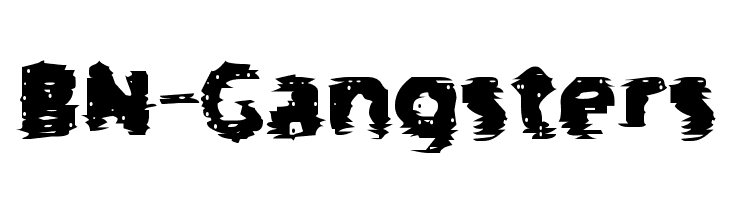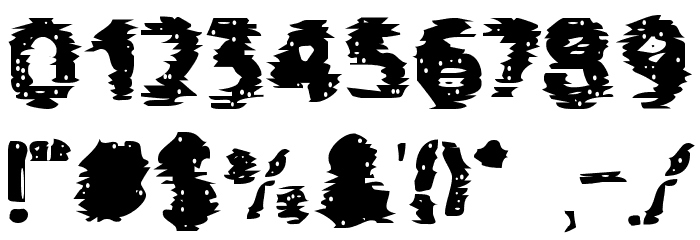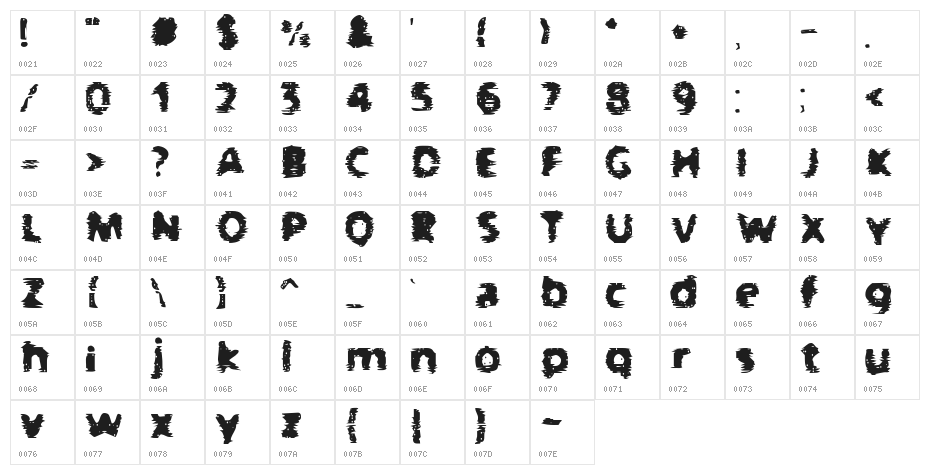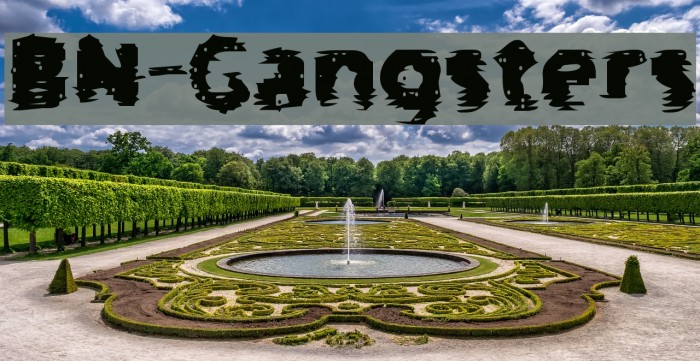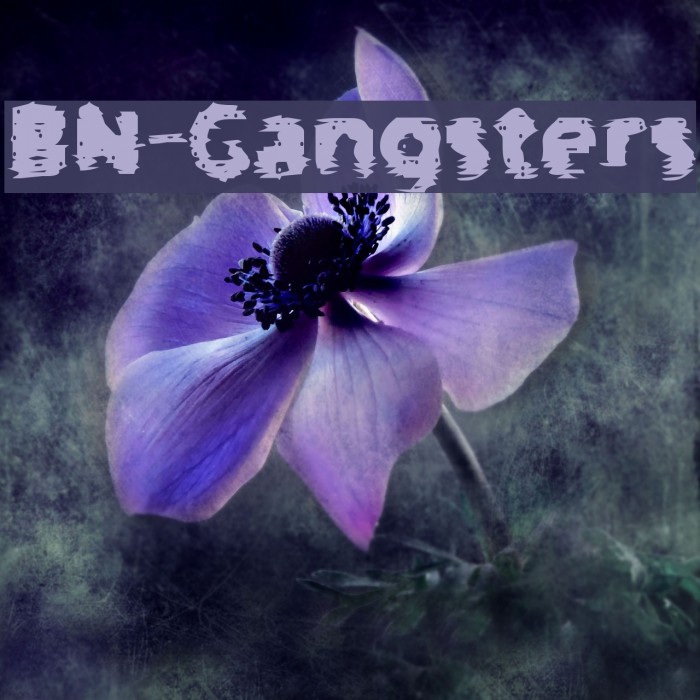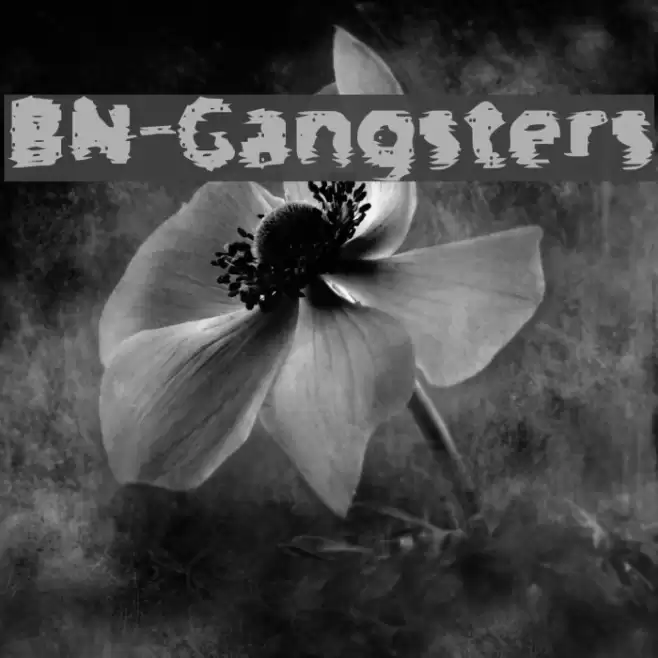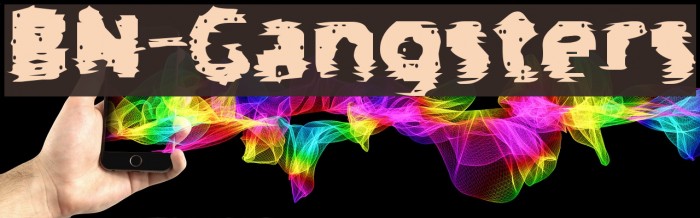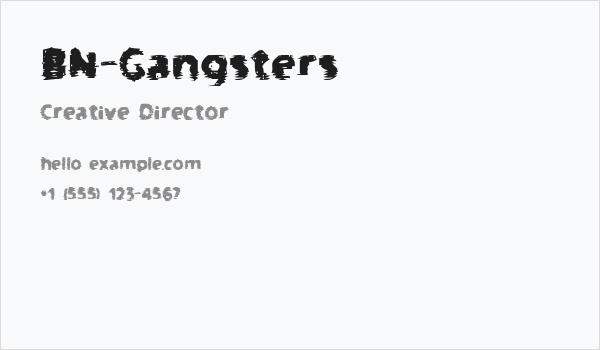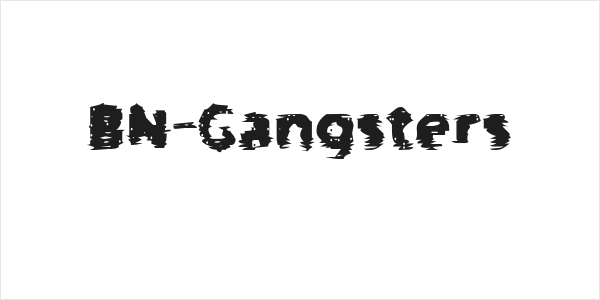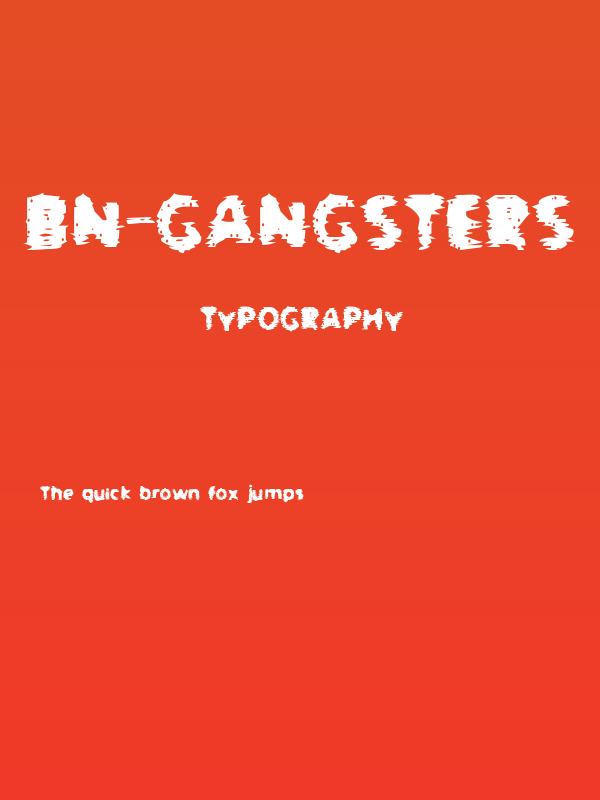
BN-Gangsters Font
BN-Gangsters Description
This font features a bold and rugged style with a distressed, grungy appearance. The characters are heavily textured, giving them a rough, edgy look that suggests movement and chaos. The design is highly decorative, with irregular edges and a sense of dynamic energy. The uppercase and lowercase letters maintain a consistent style, while the numbers and special characters follow the same aesthetic, making the font suitable for creating a cohesive visual theme. The overall impression is one of boldness and rebellion, making it ideal for projects that require a strong, impactful visual statement.
| Proposed Projects | Ideal for posters, album covers, video game graphics, and any project requiring a bold, rebellious look. |